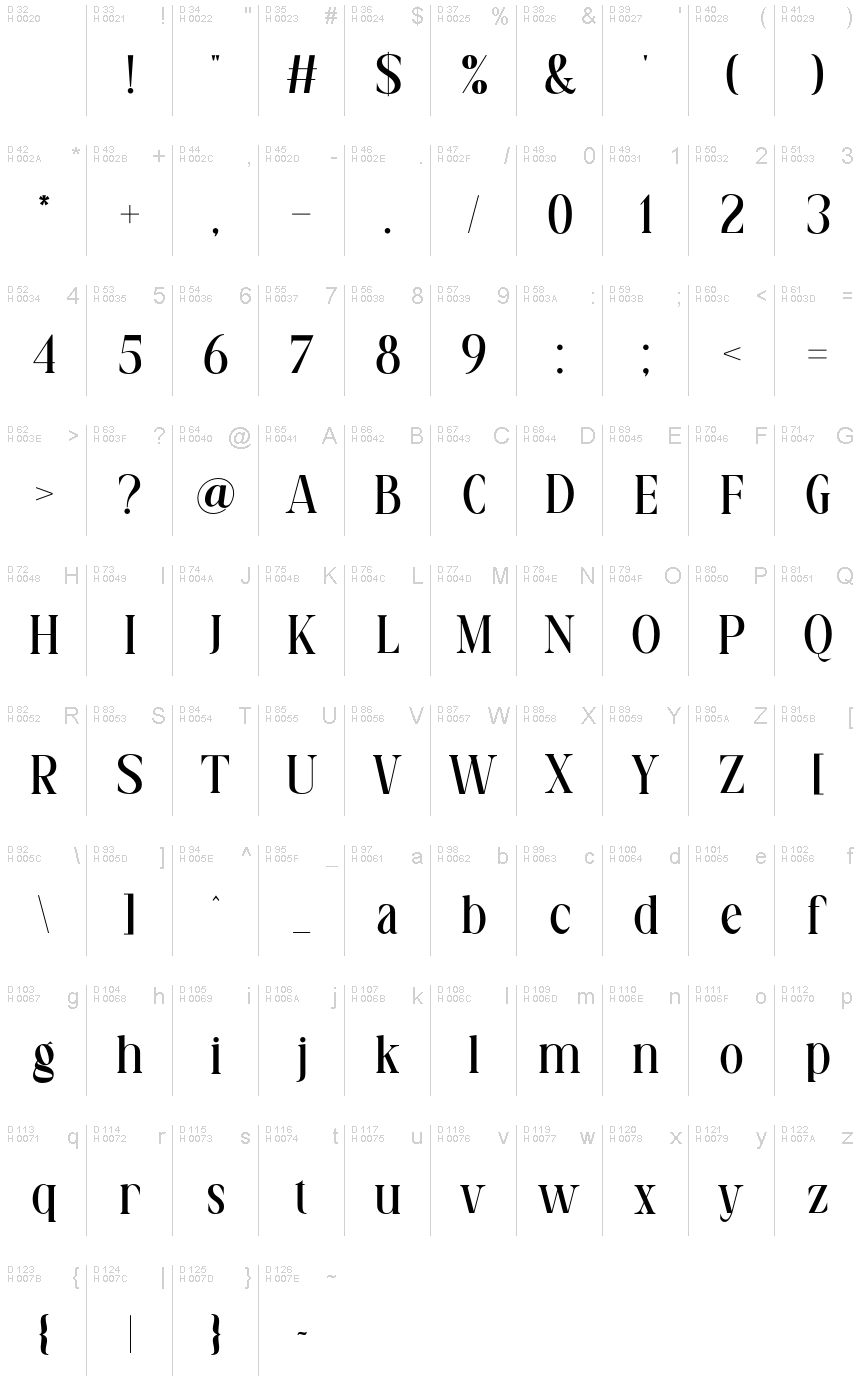
Ravegic
Ravegic, a captivating serif font crafted by Rvandtype, exudes a delightful blend of timeless elegance and modern flair. This condensed typeface boasts intricate serifs that seamlessly marry traditional charm with a refined, contemporary aesthetic. The interplay of sharp angles and graceful curves creates a striking visual harmony, evoking a sense of sophisticated refinement.
Ravegic's versatility shines through its ability to seamlessly integrate into a diverse range of design projects, from editorial layouts and branding materials to packaging and advertising campaigns. Its condensed width lends itself to applications where space is limited, allowing for impactful typographic compositions without sacrificing legibility.